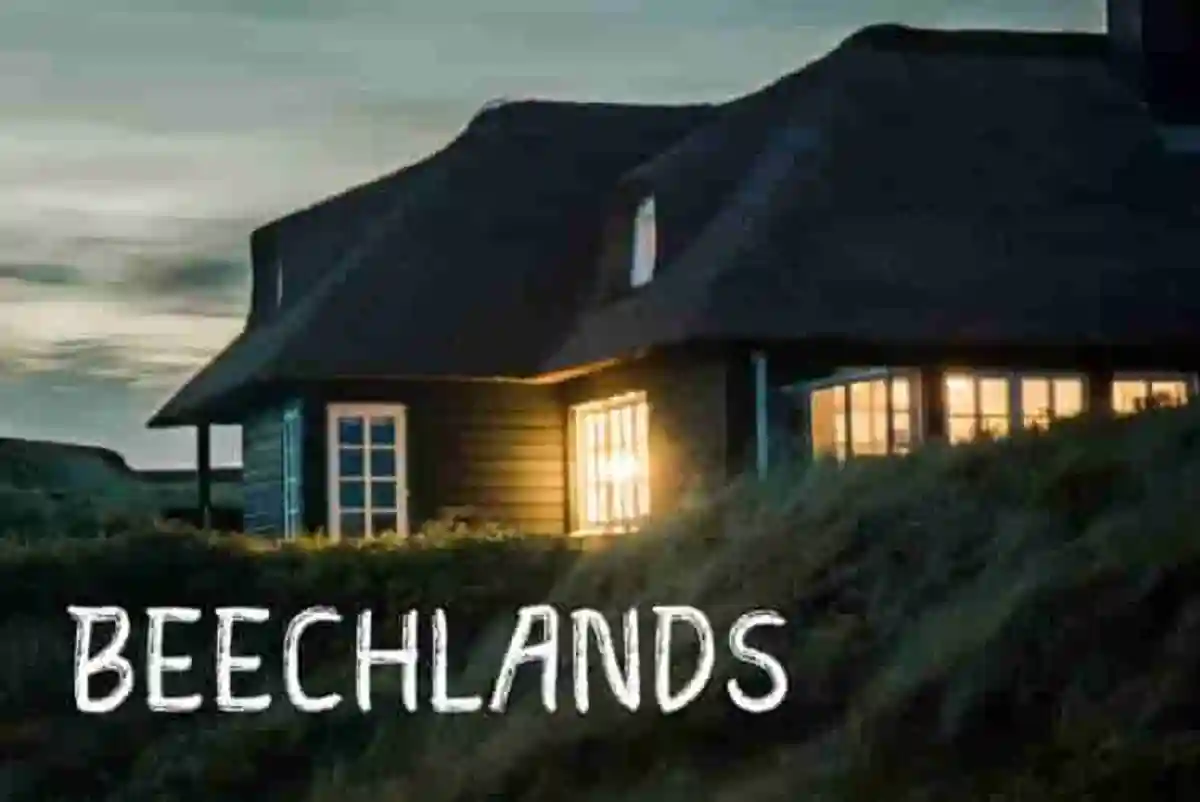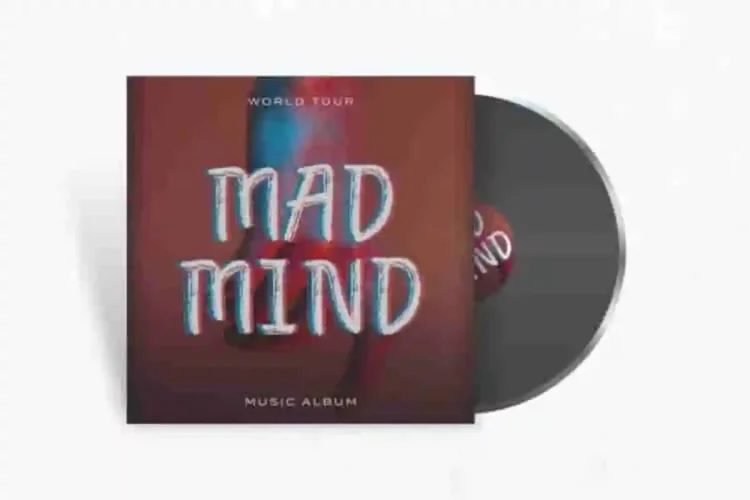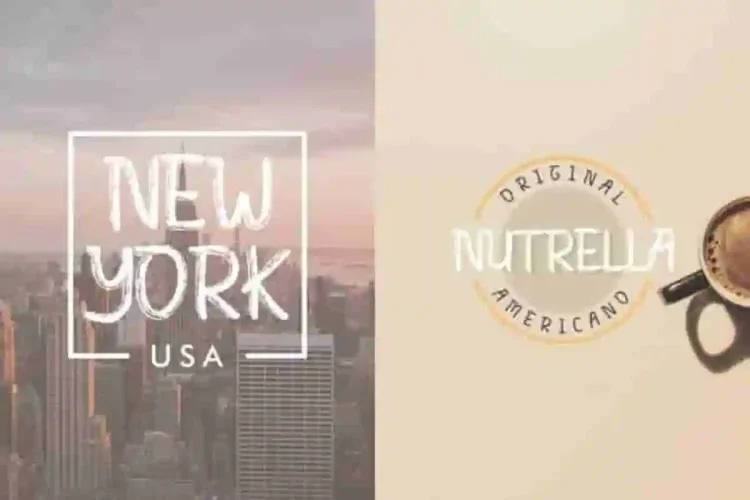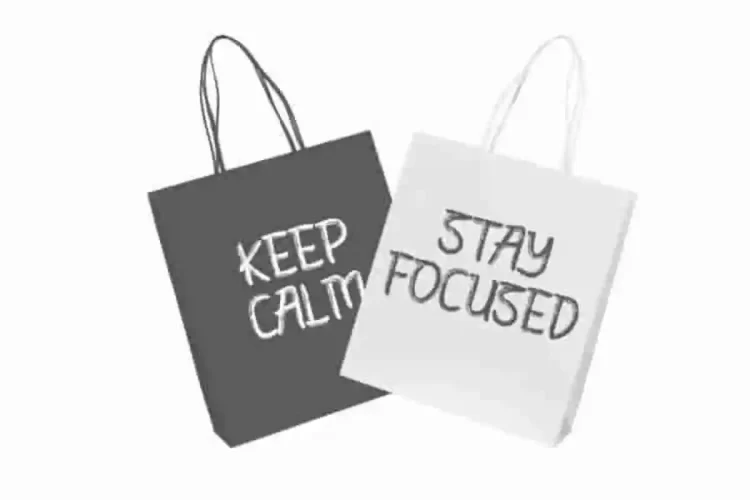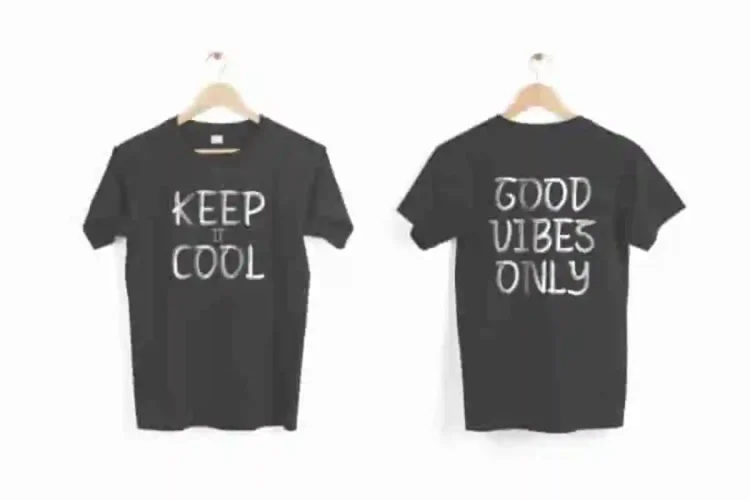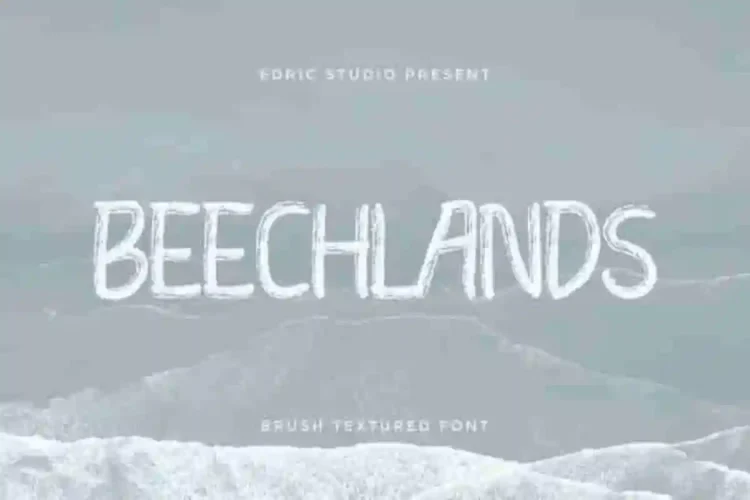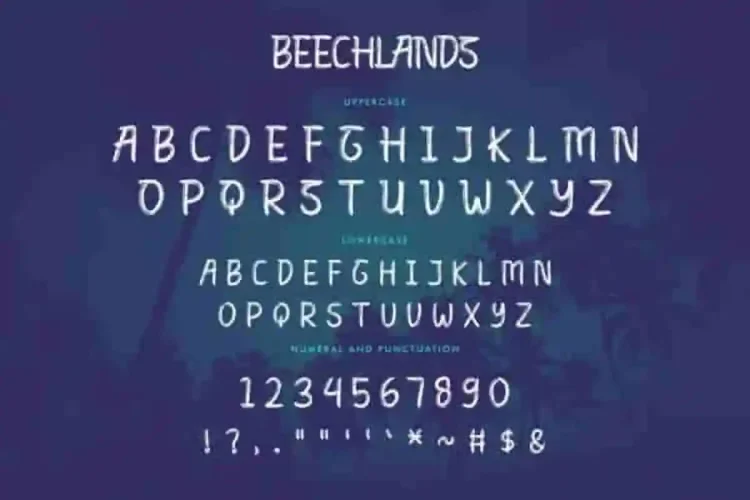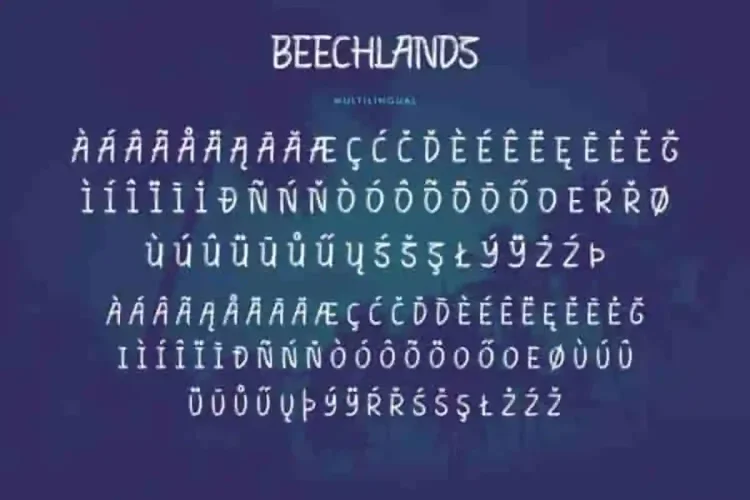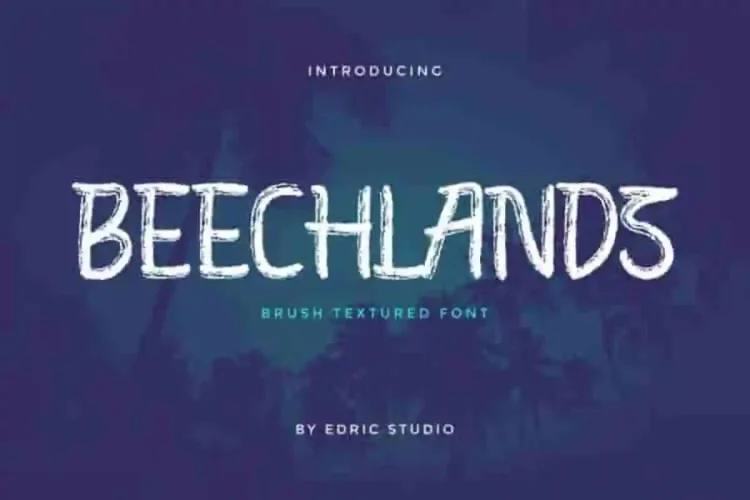
Beechlands Grunge Script Font
Beechlands Grunge Font Stand out with bold creativity using. This font has a stunning characters set, perfectly managed with well spaced and kerning. The theme style of this font will horror, movie, games, vintage and classic brush style. This brush font combines raw energy and vintage character, making it perfect for projects that demand a strong and striking look.
Beechlands Grunge Font will be great for any projects including : brandings, signage, flyer, brochure etc. Many industries and categories will be suitable for this font : events, products, movies, cartoon, festival, magician etc